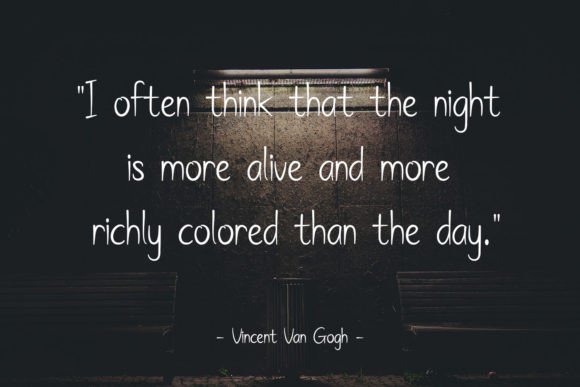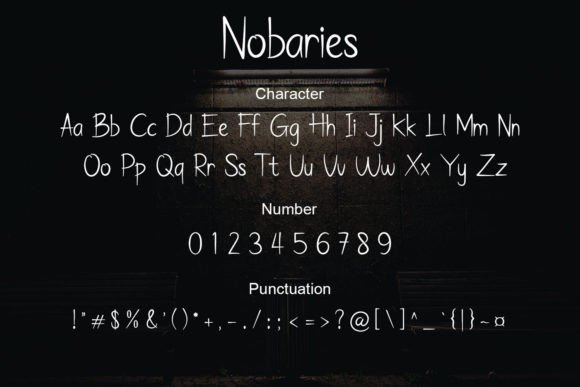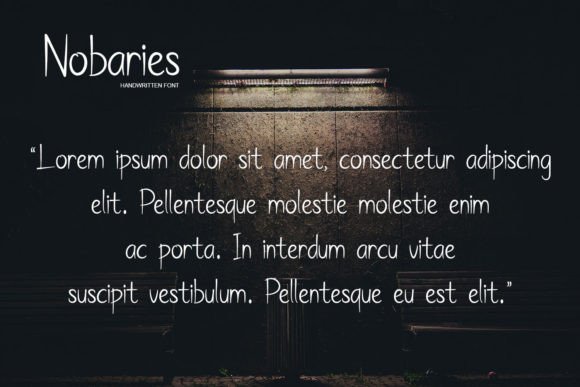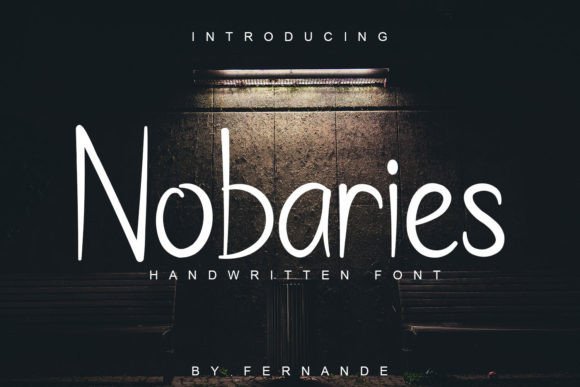
Introduction to Nobaries Font
Introducing β€œNobaries,” a handcrafted typeface defined by its sleek grace and effortless simplicity.
Its lengthened, narrow characters lend a contemporary and stylish atmosphere Infused with a touch of personal charm, β€œNobaries” is a versatile gem, perfect for a range of creative pursuits from poster art, graphic design projects, charming invitations to striking social media content.
Key Features of Nobaries Font